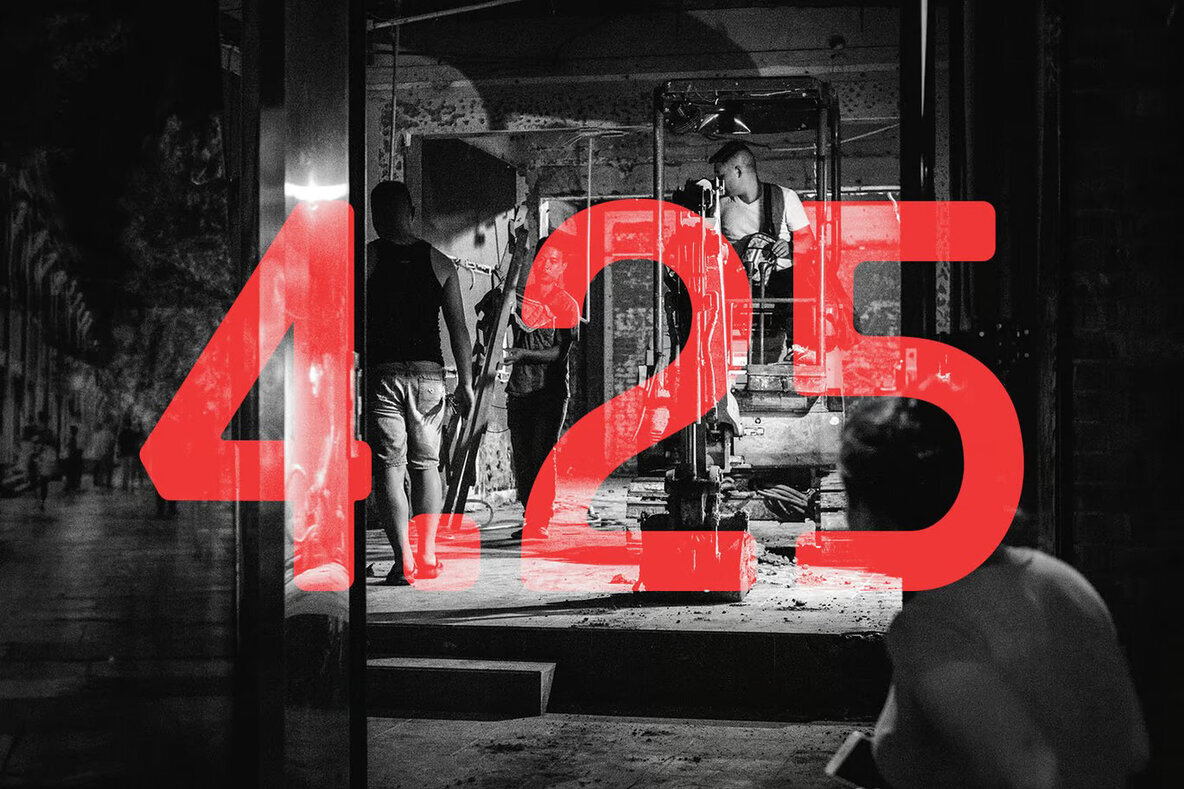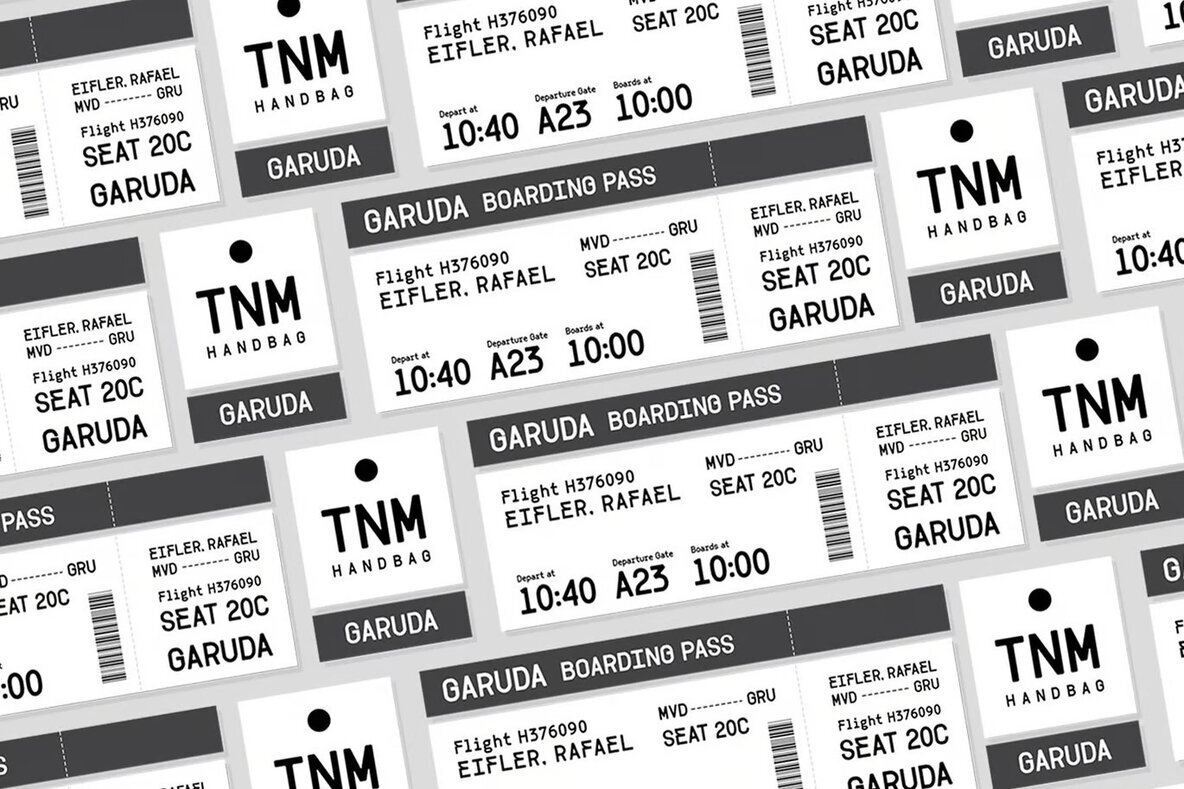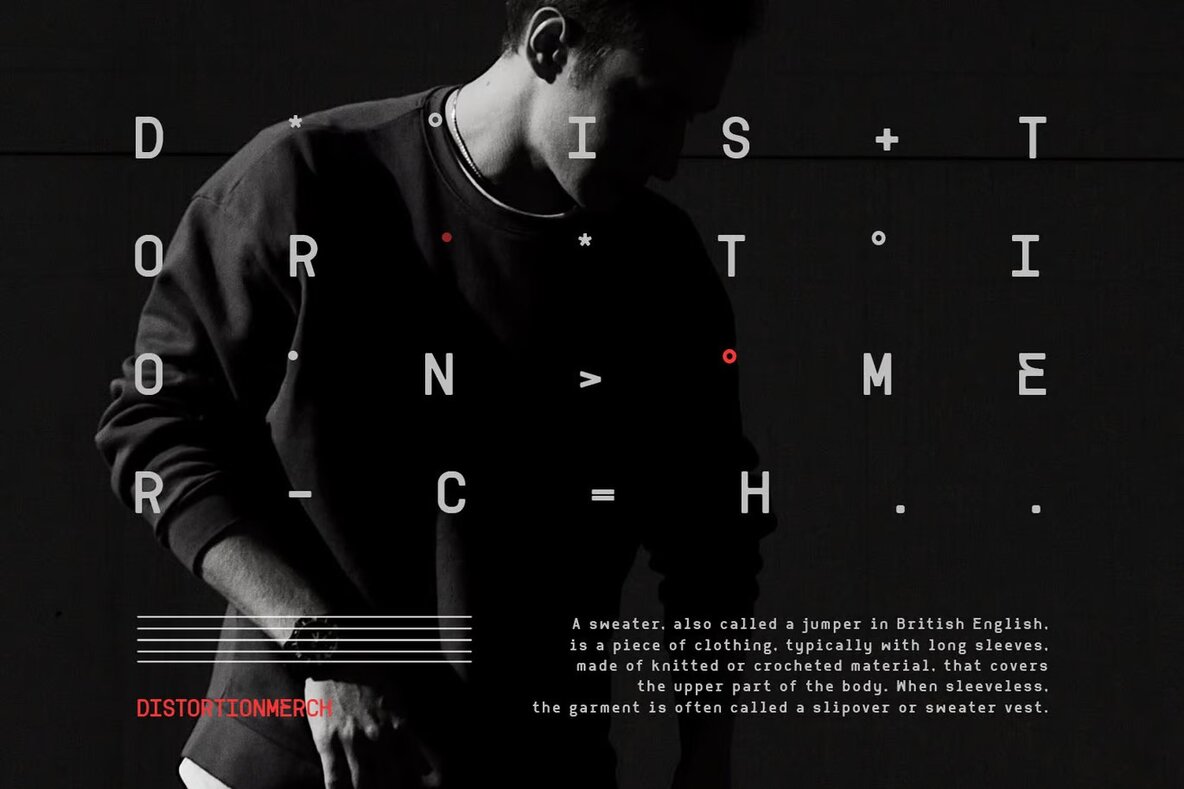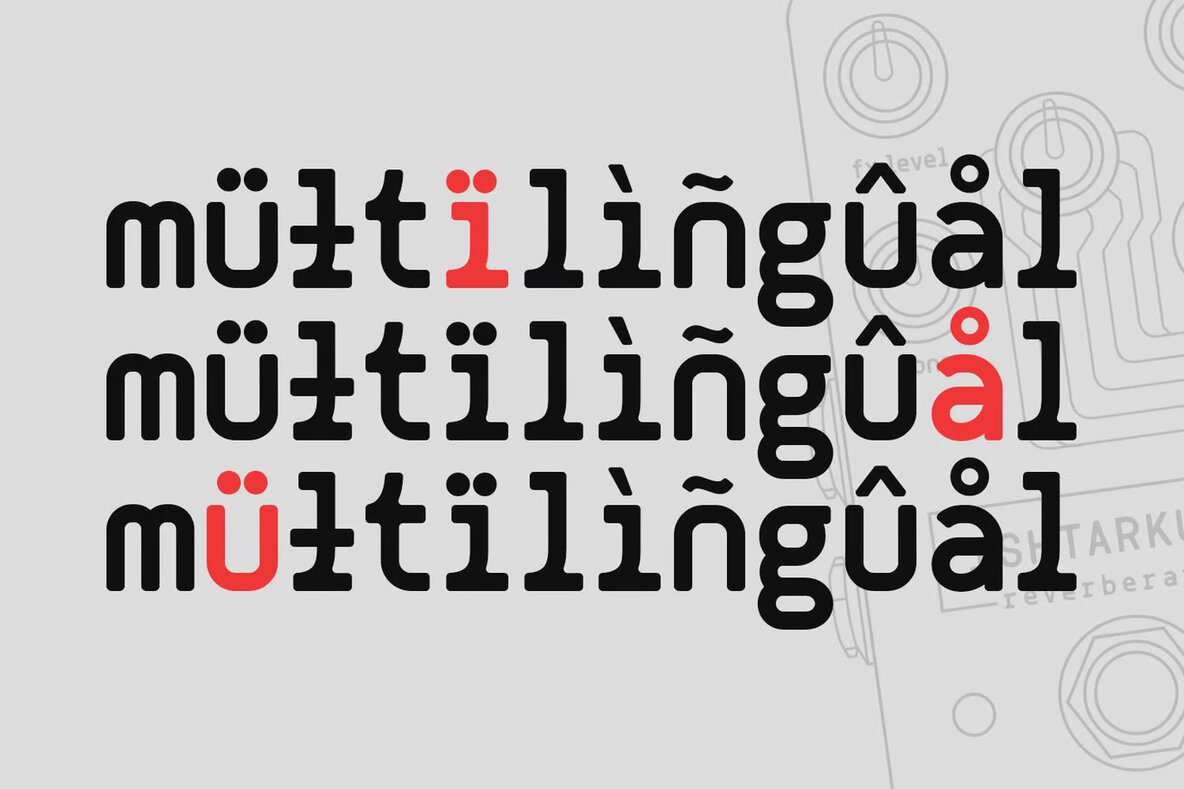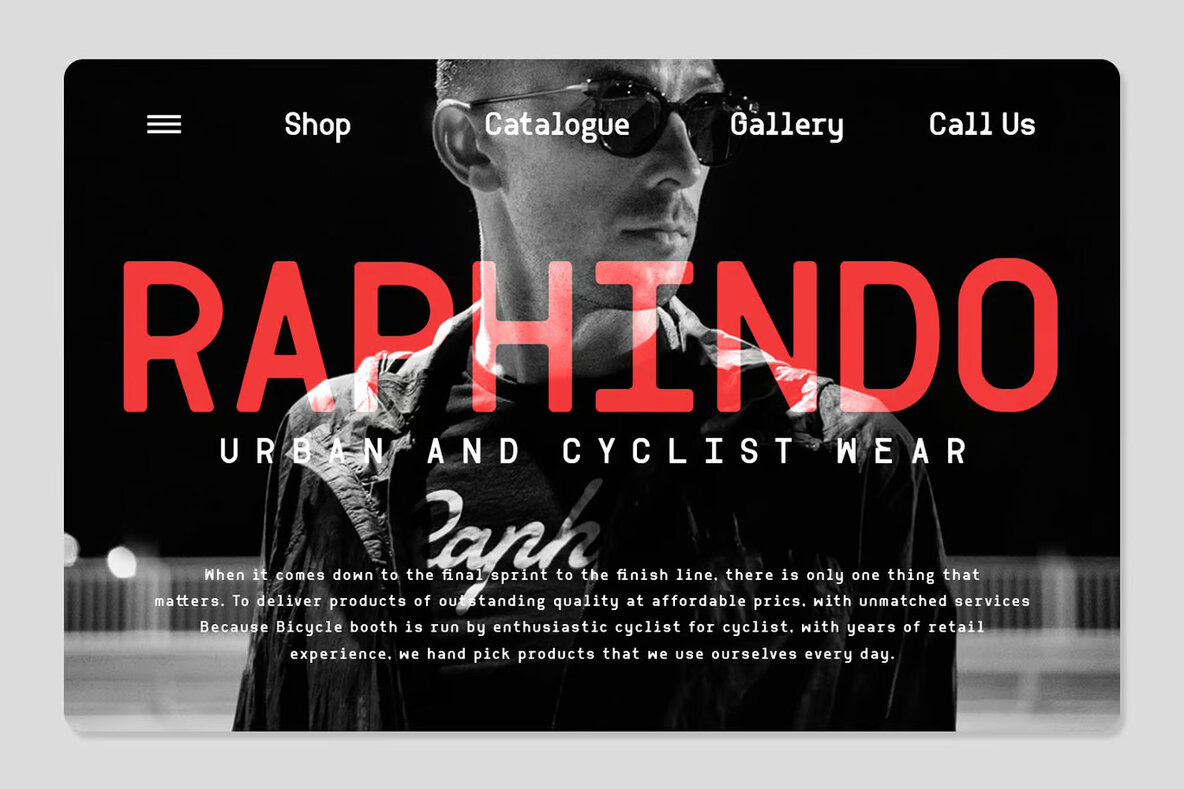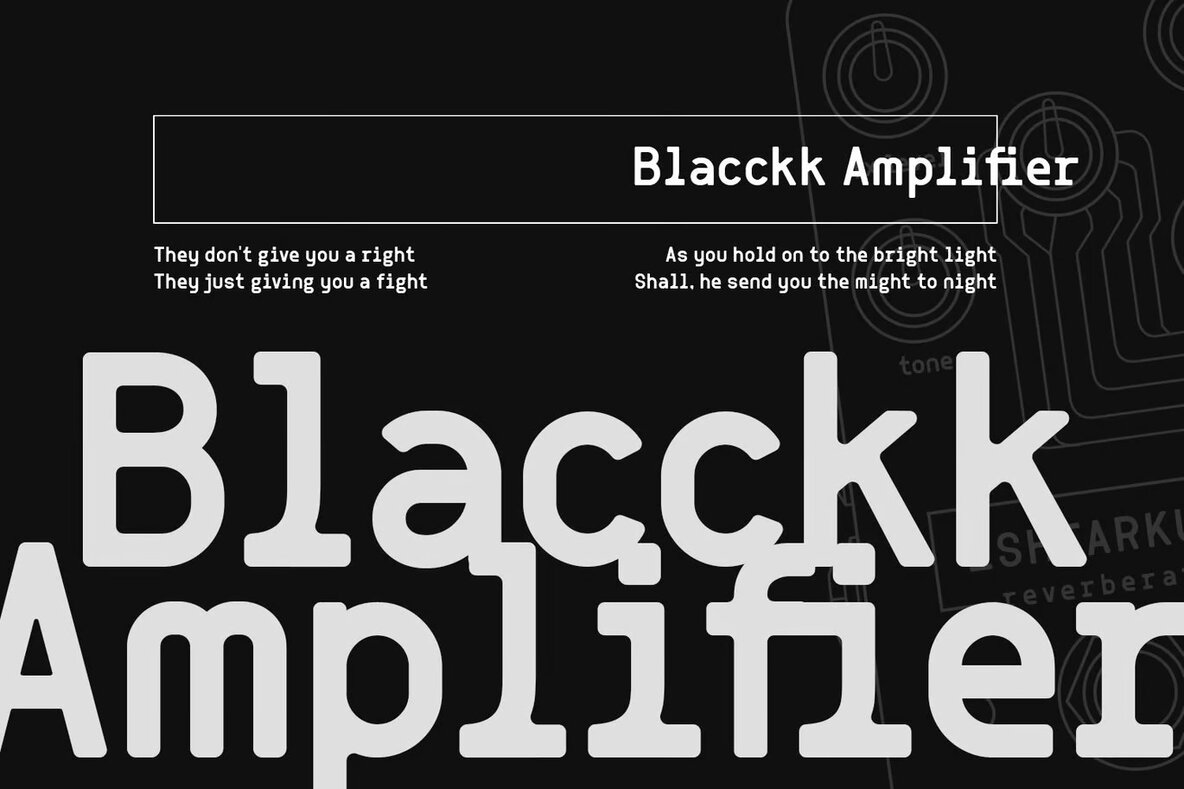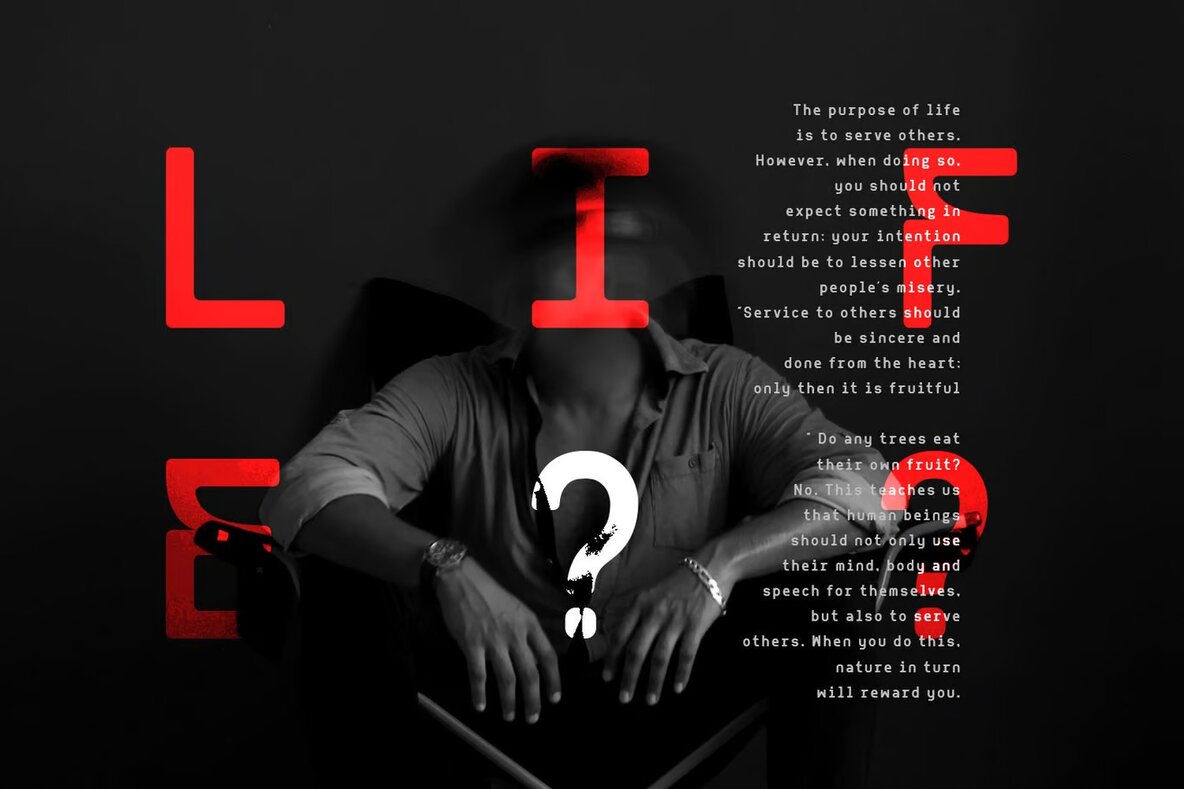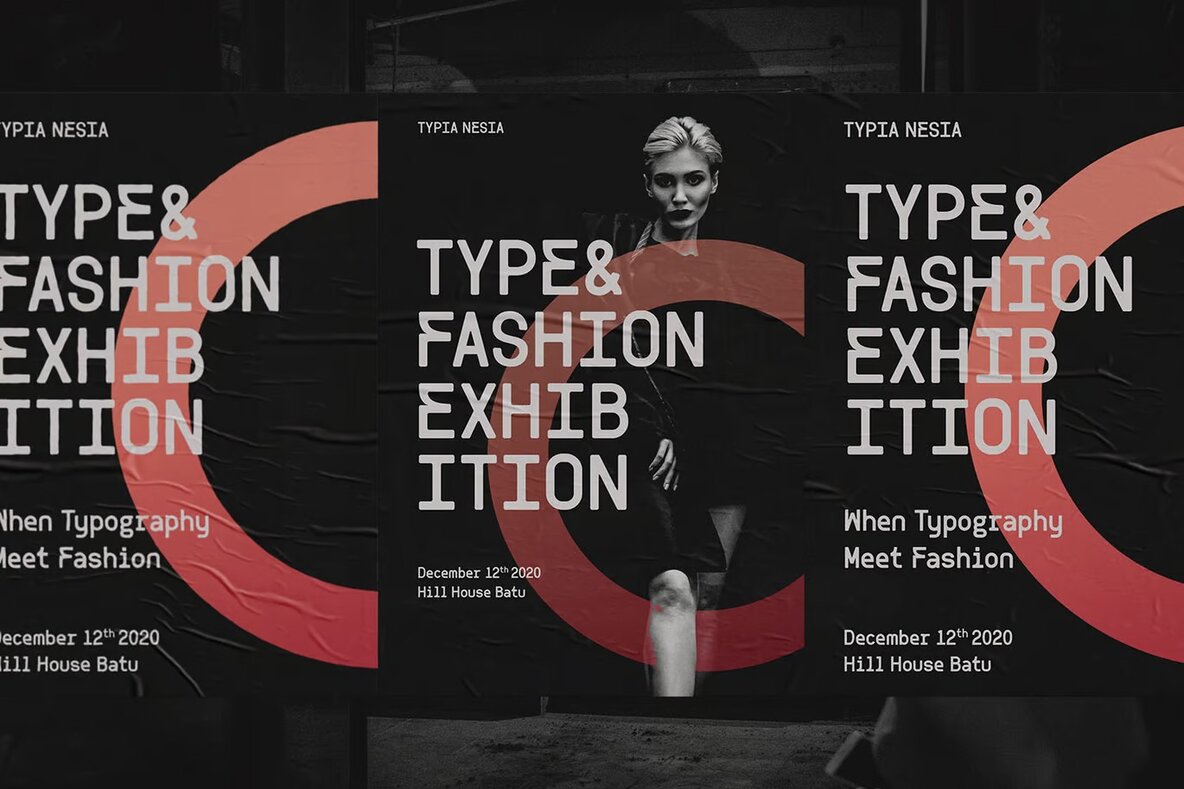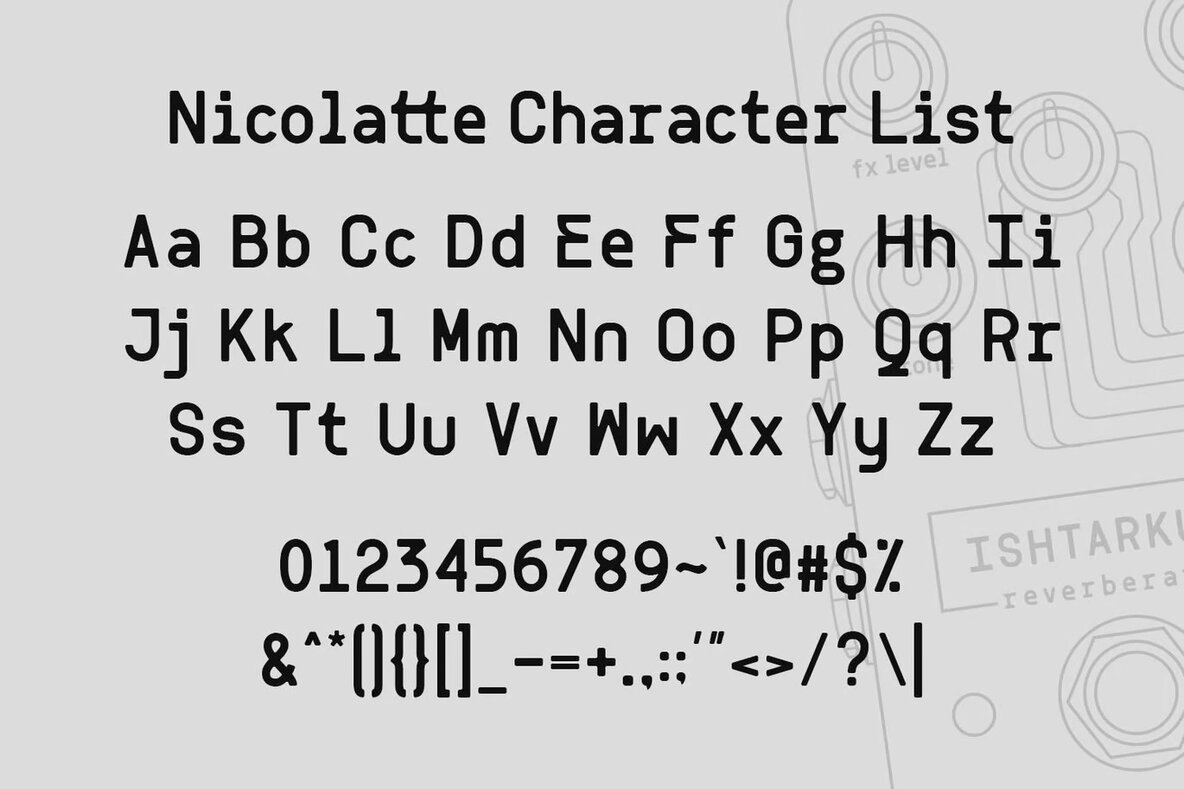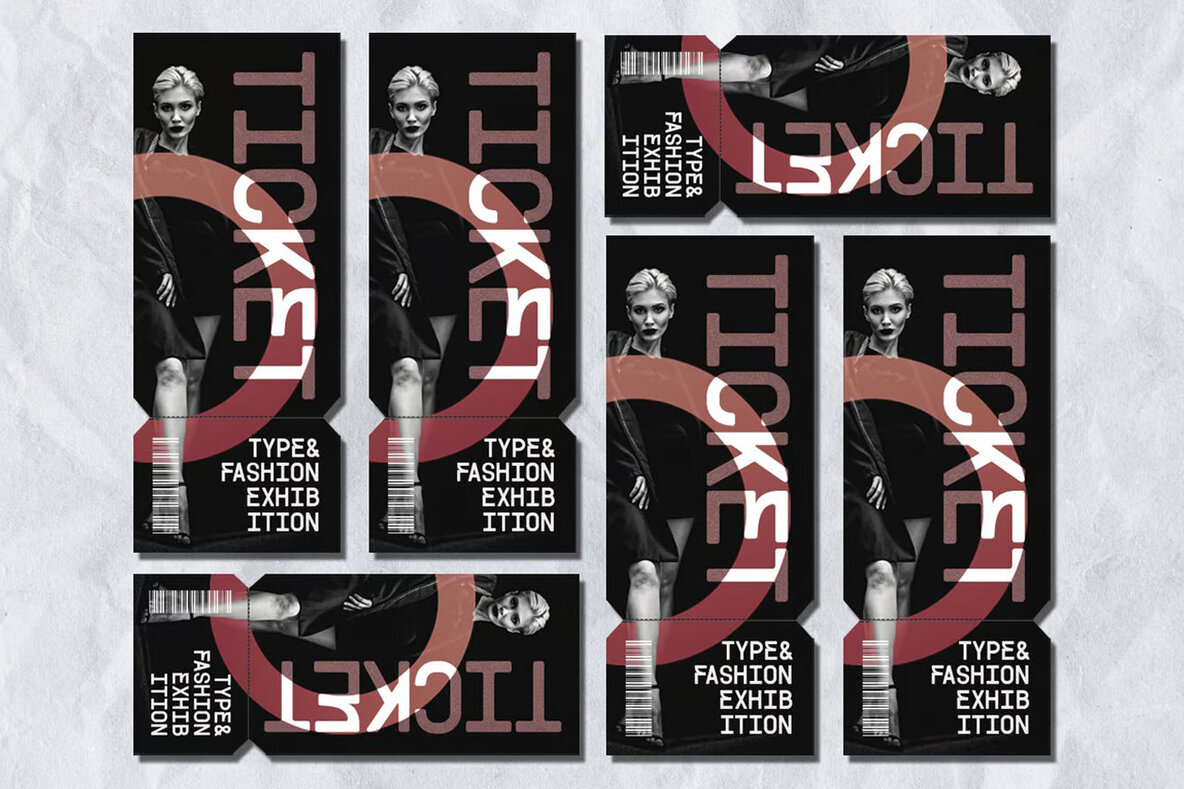
Nicolatte Font
Nicolatte is a versatile monospace sans font, designed to add a futuristic touch to various design projects. Perfectly suited for use in logo and branding, Nicolatte is equally effective in sci-fi posters, product packaging, and invitation designs. Its modern aesthetic makes it an ideal choice for advertising campaigns, sports apparel, and ticket design, seamlessly blending into digital boarding passes and game industry materials.
Further enhancing its appeal, Nicolatte is tailor-made for the technology sector and movie projects, offering a sleek, clean look for any futuristic typography requirements. Whether you're crafting designs for entertainment or tech-driven projects, Nicolatte provides a modern typographic solution that emphasizes clarity and innovation.